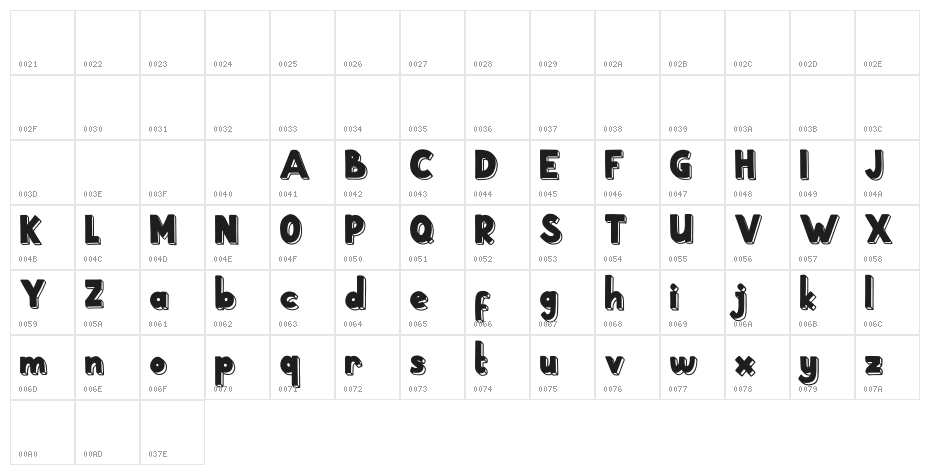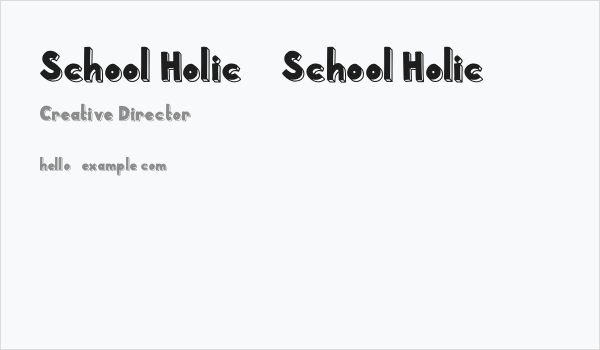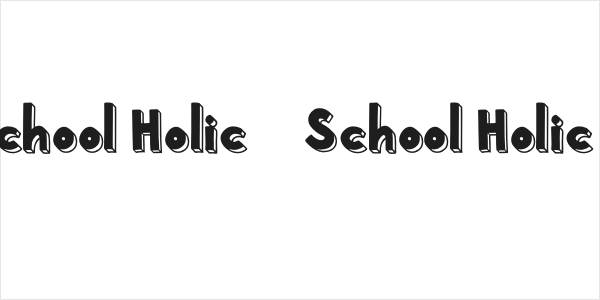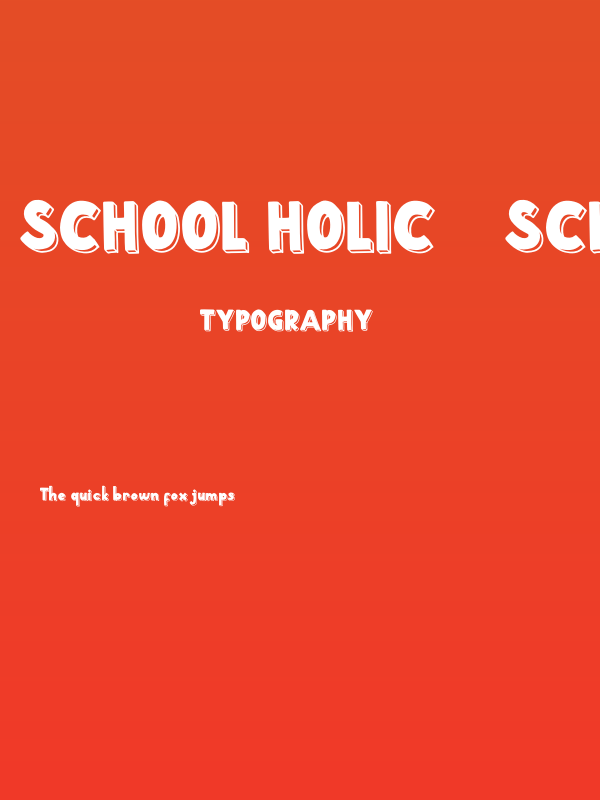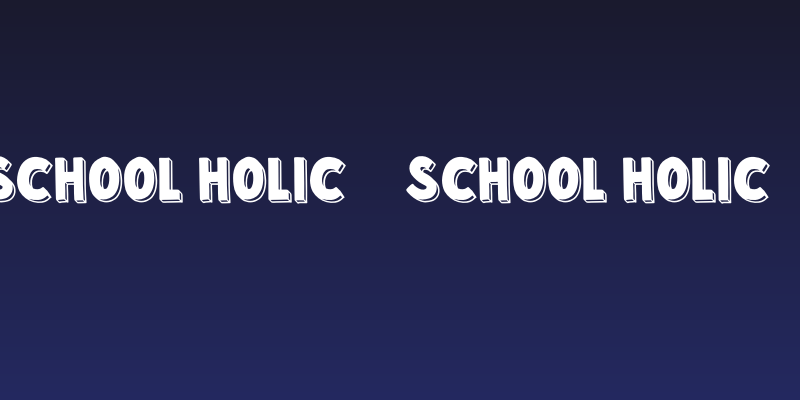
School Holic 7 Font
School Holic 7 Description
This playful and bold font features a unique 3D shadow effect, giving it a dynamic and eye-catching appearance. The characters are thick and rounded, with a cartoonish style that adds a sense of fun and creativity. The uppercase and lowercase letters maintain a consistent style, with the shadow effect creating depth and a sense of movement. The font is highly legible, making it suitable for a variety of uses where a bold statement is needed. Its whimsical design is perfect for projects that require a touch of humor and personality.
| Proposed Projects | Ideal for children's book covers, playful branding, posters, and educational materials. |